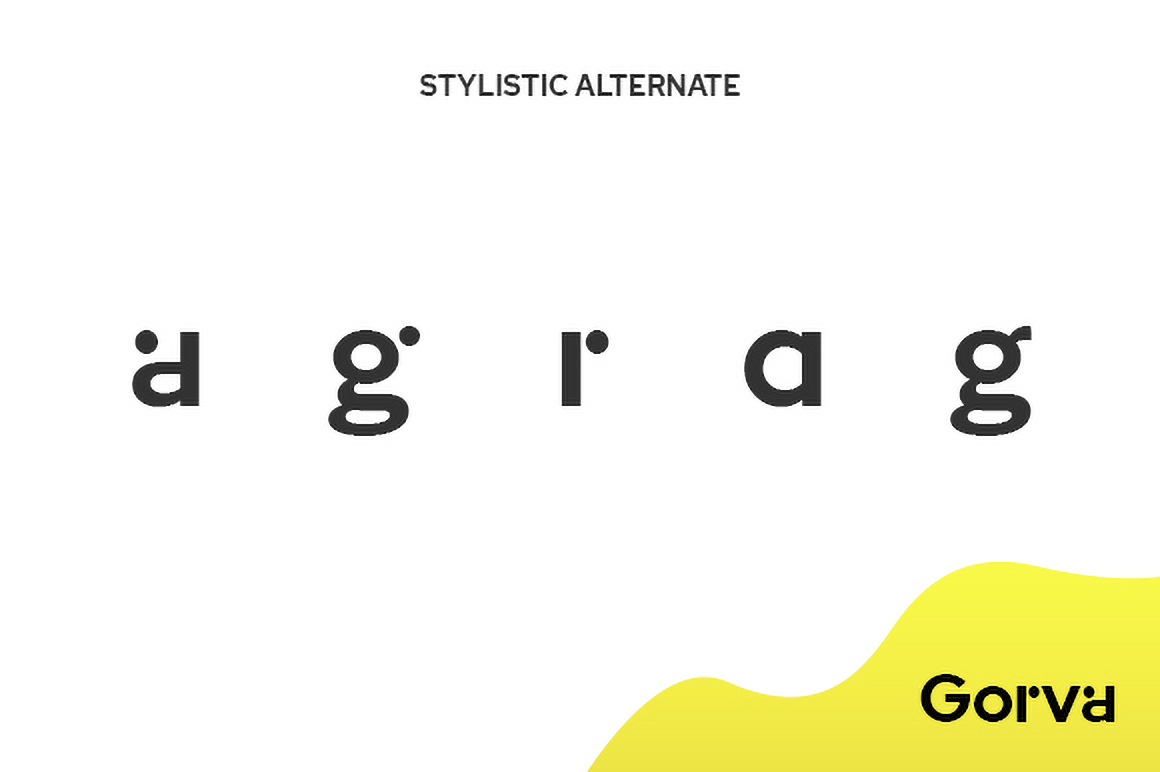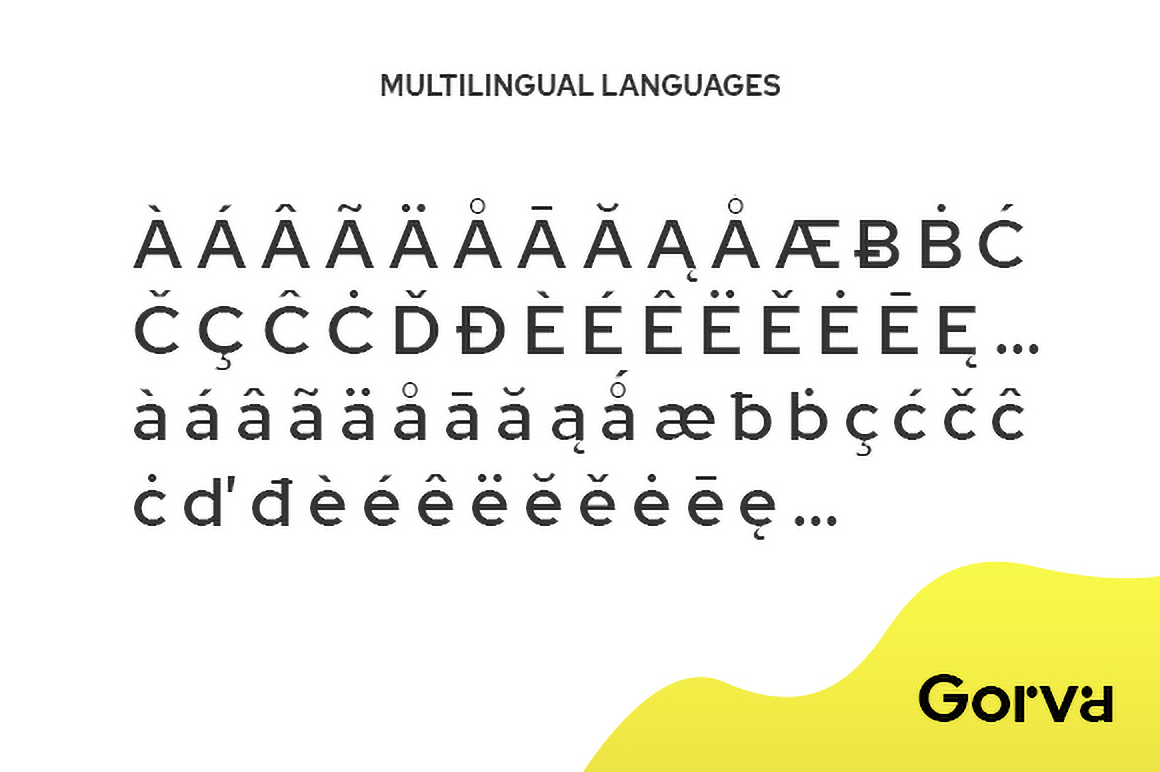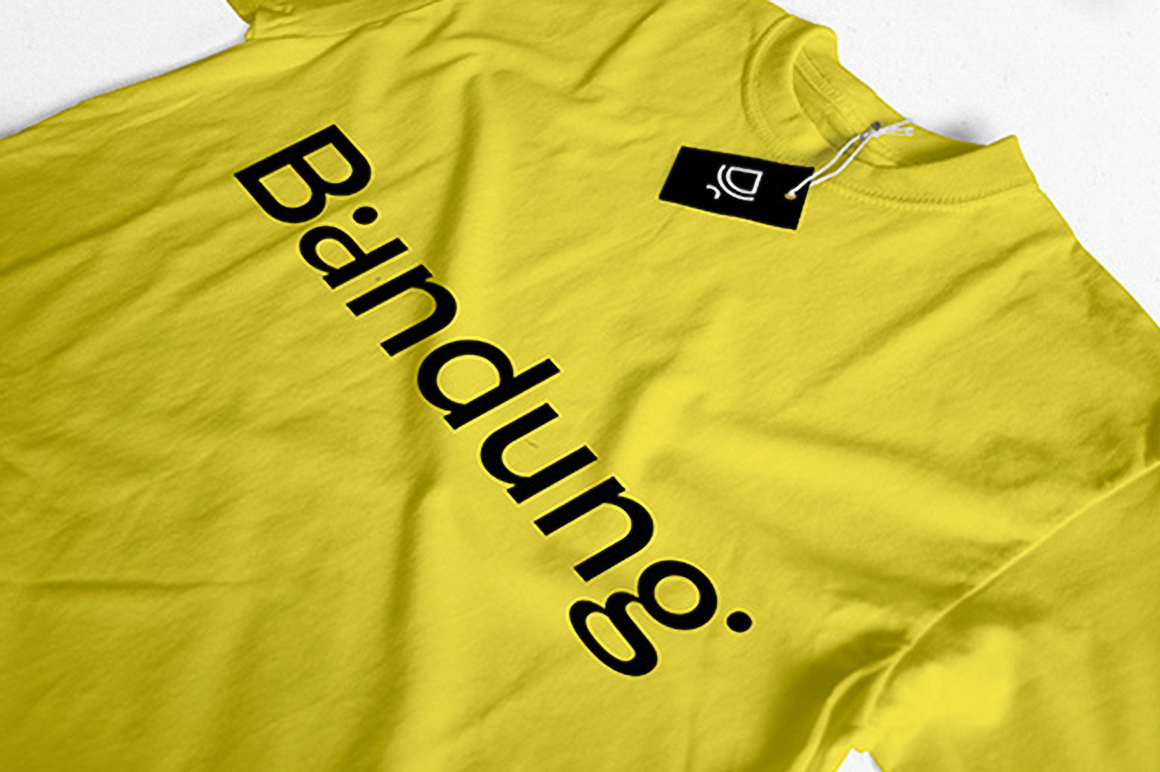
Gorva Free Font
Gorva Free Font is a geometric sans serif typeface. It features a modern and unique style that will take your designs to the next level. This free typeface was designed by the talented Dadan Sukma Nurdiansyah. If you like it don’t forget to check out the full version.